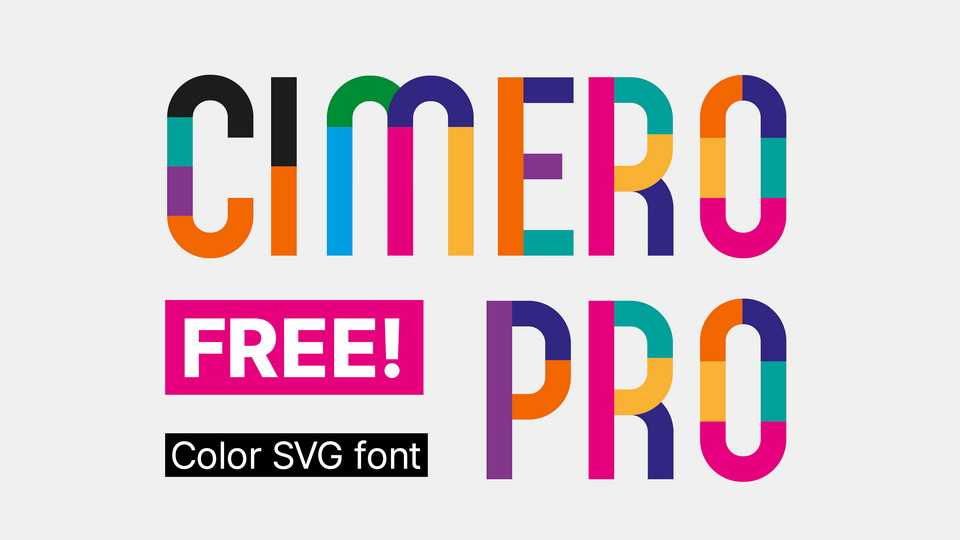
Download Cimero Pro font, the newest chromatic (or color) SVG typeface. Each letter has an alternate, allowing you to create texts that look non-uniform. Cimero Pro is a display font and typing long texts in it may be very tiresome to read.
Designer: Ivan Filipov